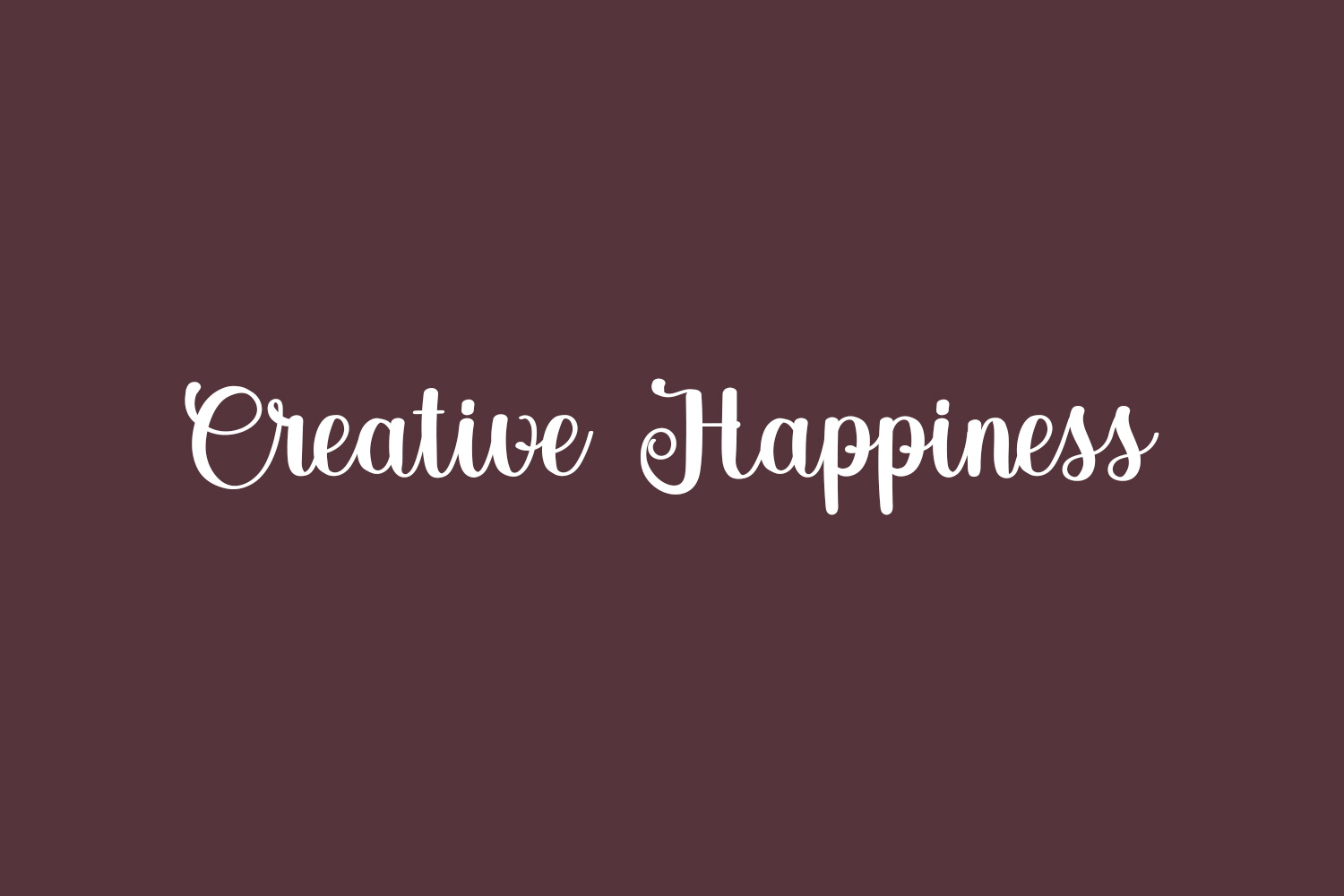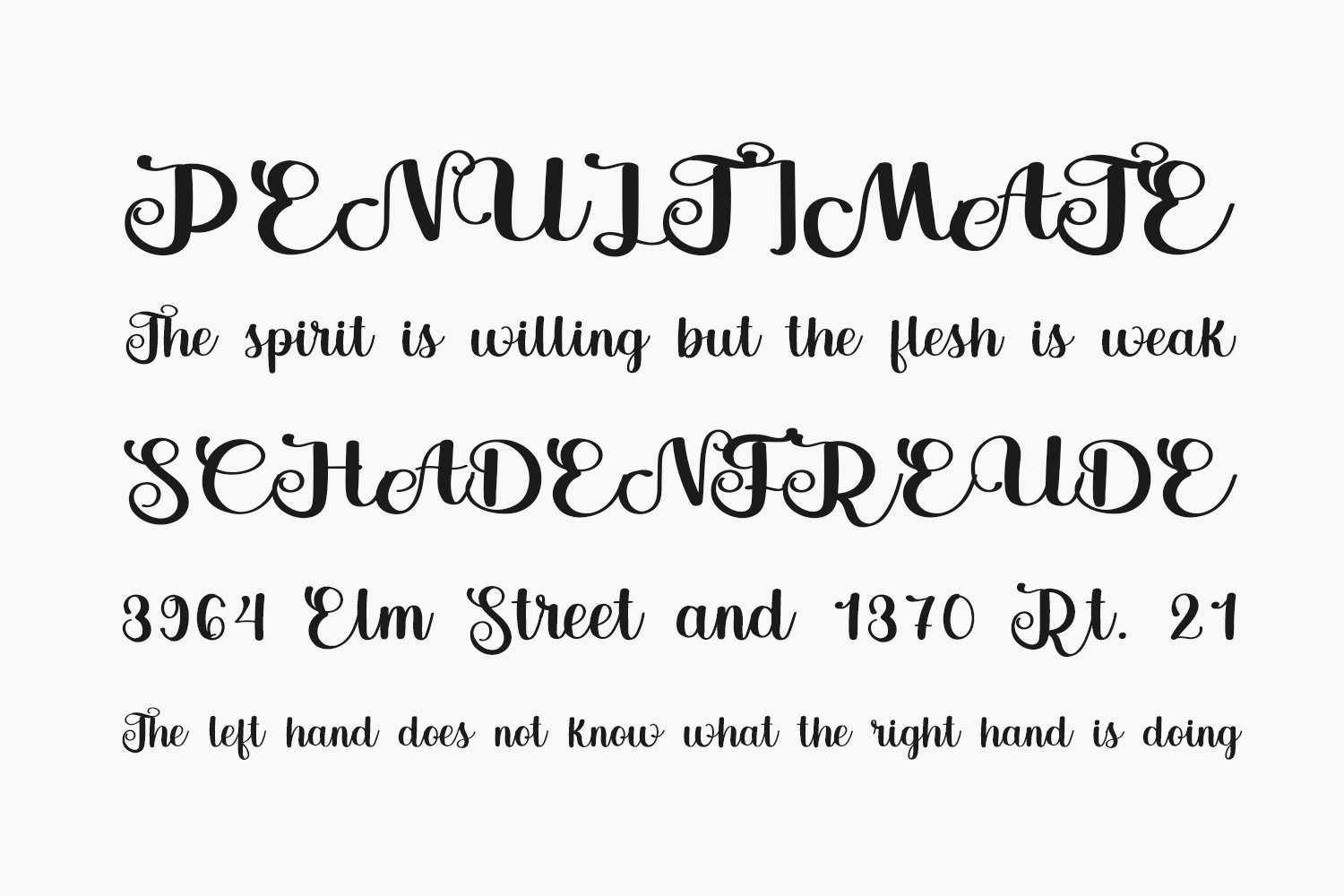
Creative Happiness Free Font is a lovely and delicate script font that exudes elegance and class. This font was particularly crafted for those who need a beautiful and refreshing look to their designs. Creative Happiness Free Font was designed by Inermedia Studio and is free for personal use only. Please purchase the full version for commercial use.